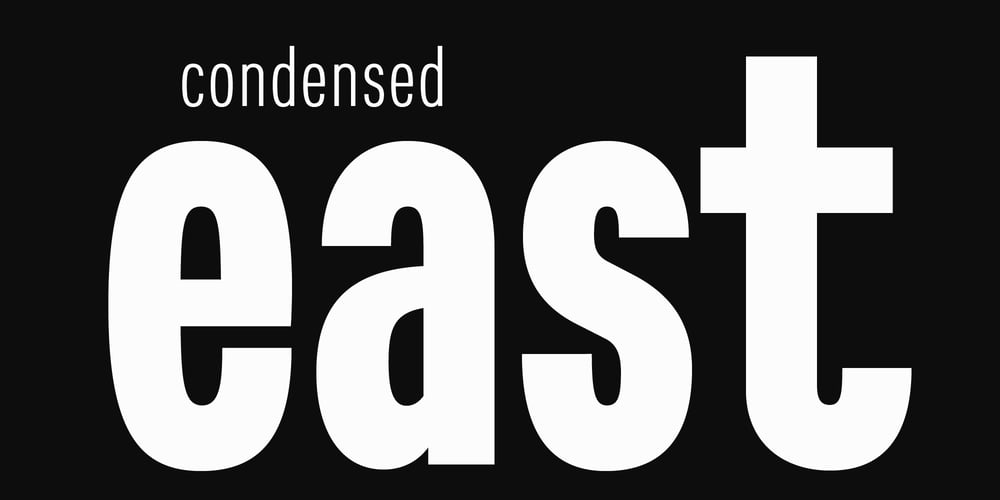
East
East font
East Font Family was designed by Donald Tarallo and published by Tarallo Design. East contains 12 styles and family package options. East is a simple and confident typeface. It is timeless and current, but with a subtle nostalgia of vintage Jazz albums, film credits, newspapers, and signage.The light weight has excellent legibility at small sizes. The Extra Bold weight will capture attention. Its condensed width allows a lot of text in little space. East is versatile, but would be a good choice for film titles, labels + packages, posters, publications or any design where space is limited.It has six weights between Light and Extra Bold. A variable font with weight and slant axes is available and included in a full family purchase. The OpenType features include; stylistic sets, a one story ‘a’, hooked letters, seriffed uppercase I and 1, a slashed zero, raised colon and punctuation (Spanish), several German eszetts, ligatures, diverse bullets, and vertically stacked pre-built fractions.It will support western and central European languages as well as other Latin-based written languages.